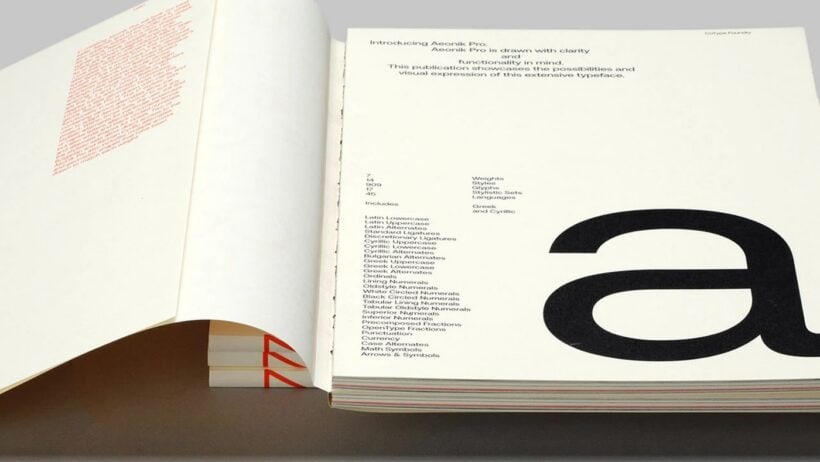
Aeonik Pro Variable Sans, Typeface Specimen Harnessing Visual Tension to Elevate Modern Brands
Aeonik Pro’s variable sans balances sharp geometry and strict grid, printed specimen books reveal scale, texture and multilingual support.
Visual Tension, Aeonik Pro
I recommend this Aeonik Pro specimen for any studio seeking disciplined typographic systems and modernist clarity. Mash Creative showcases sharp geometric letterforms set on a rigorous modular grid, producing focused visual rhythm and precise spacing. The specimen balances scale and restraint, letting negative space drive composition and guide the eye. Each weight reads distinct and crisp, making hierarchies effortless across editorial spreads. The printed books amplify tactile choices, pairing premium paper with exact ink coverage, which elevates perceived quality and legibility in every spread. It also supports Cyrillic and Greek languages.
Study the two printed books to see modular grids and scale in practice, and feel the material choices. The small book dissects glyph structures with closeups and geometric detail. The larger book demonstrates layout hierarchies and editorial rhythm. Ink and paper decisions enhance contrast and legibility, keeping forms crisp under scrutiny. The restrained aesthetic removes ornament, focusing on clarity and function, which benefits branding and editorial systems. Mash Creative refines the original family with thoughtful expansion, creating a flexible tool that suits digital and print workflows alike. It scales from micro interfaces to large installations with unwavering typographic authority everywhere.